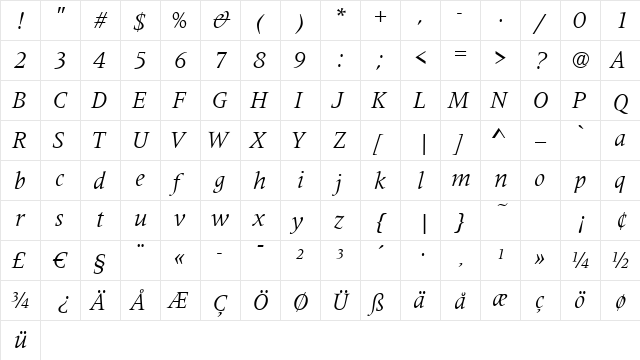
Metaphor Italic
Design Context for Metaphor Typeface
Metaphor offers clean, dependable letterforms without strong stylistic allegiance, making it a practical choice for designers who need flexibility. The slanted form adds forward momentum and visual energy.
Pro Tip: Try Metaphor for annotation and caption copy alongside an upright companion — the contrast in angle creates a dynamic but ordered typographic system.